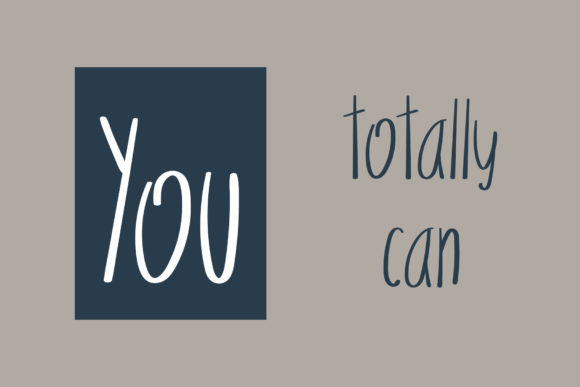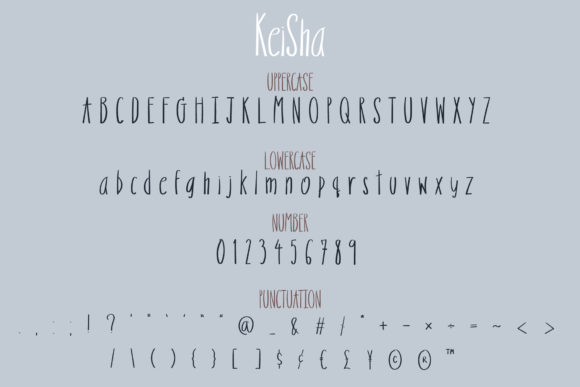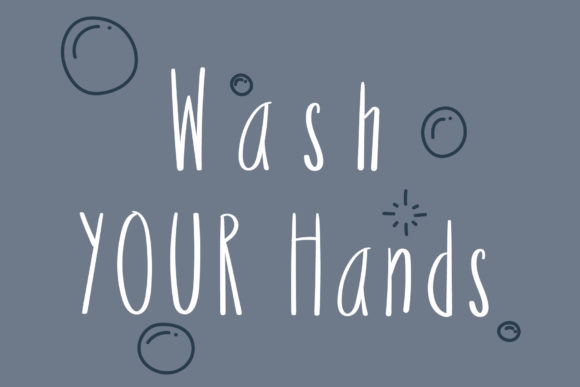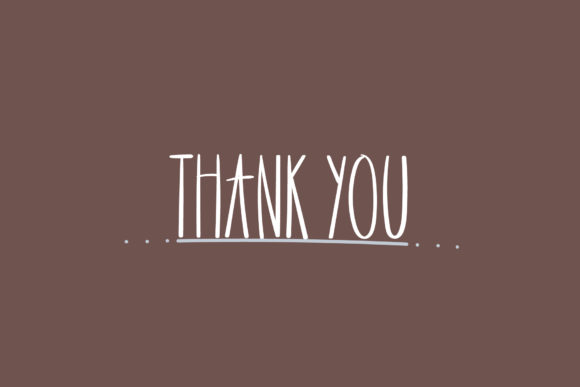
Keisha Font
About Keisha Font
Keisha embodies fun, quirkiness and authenticity. This enchanting handwritten font will turn any creative idea into a true standout.